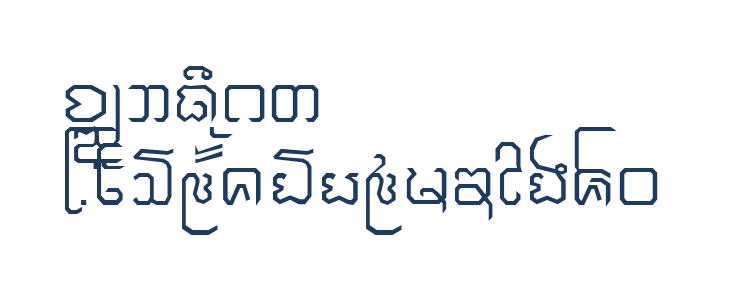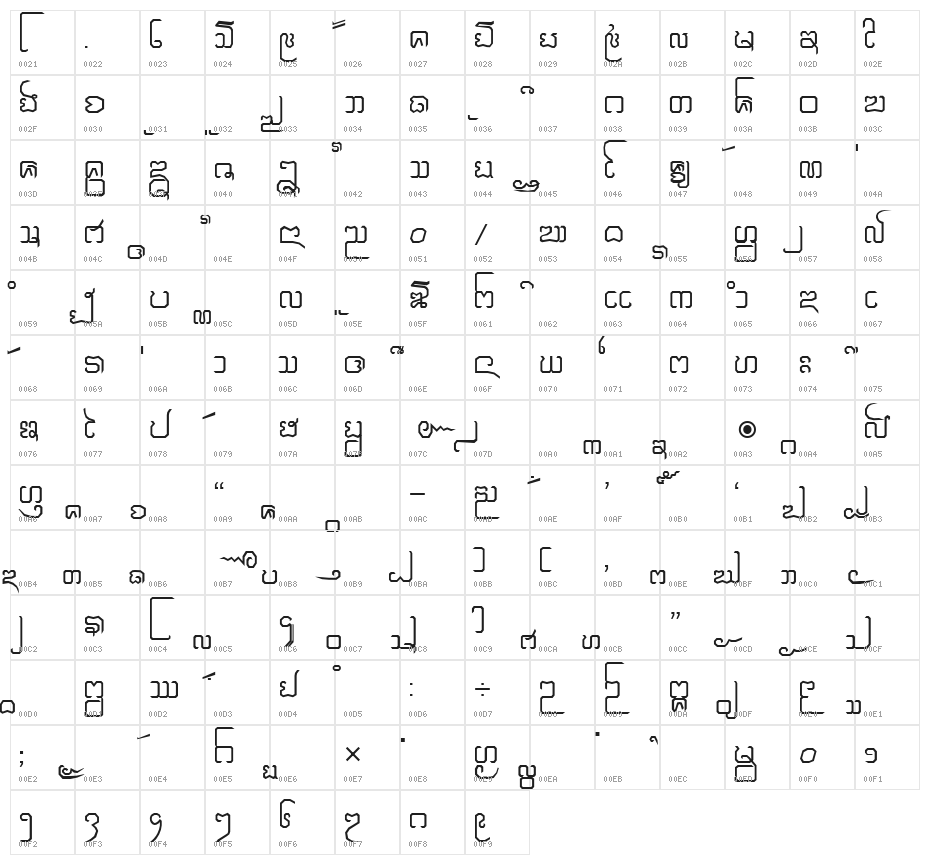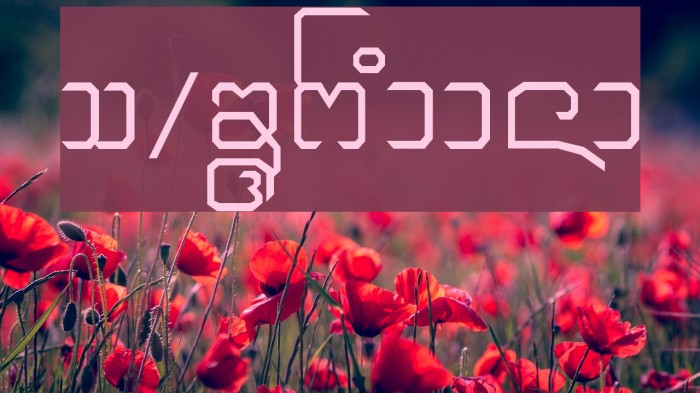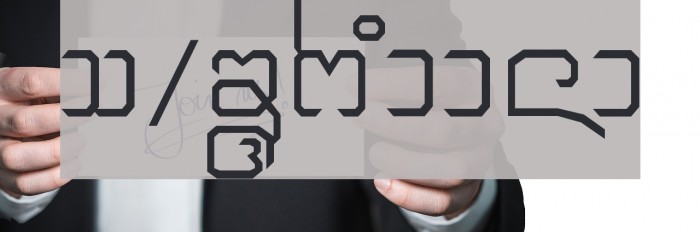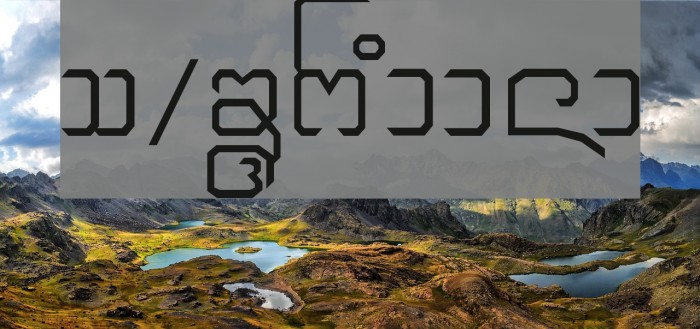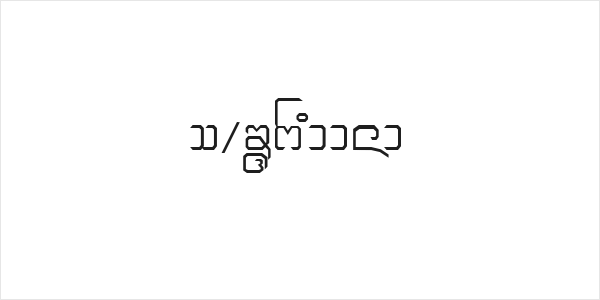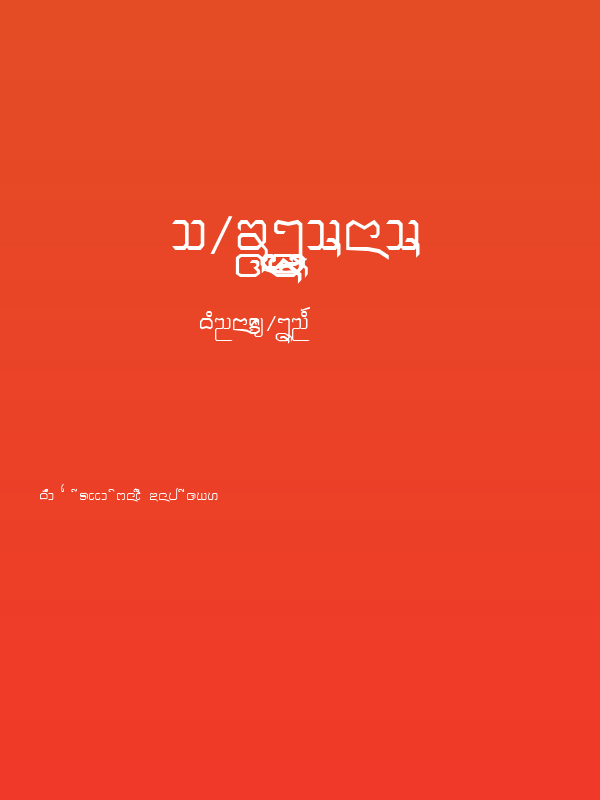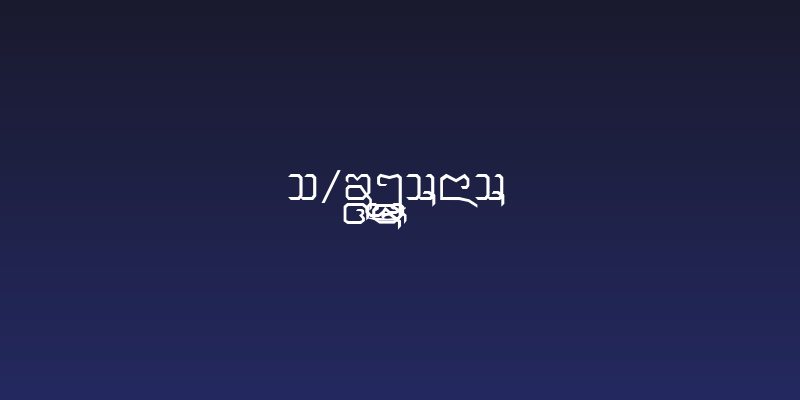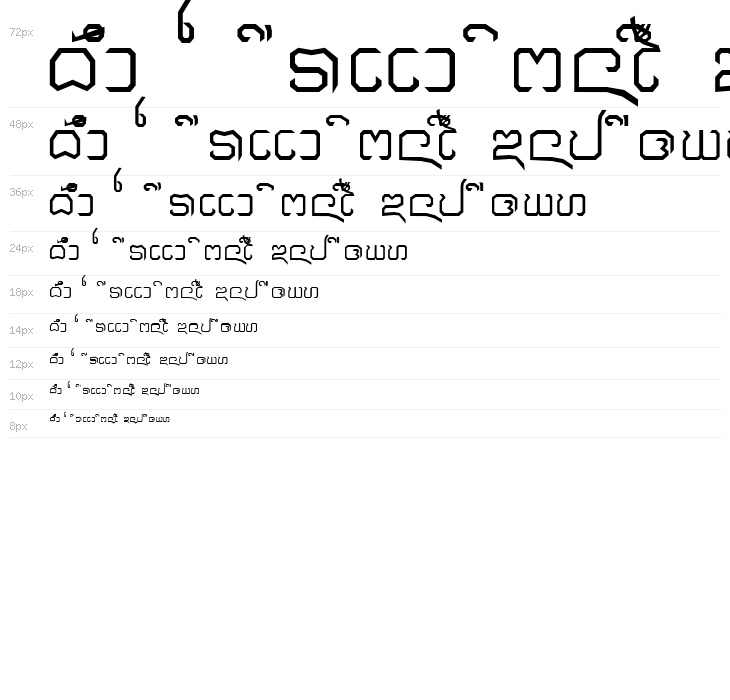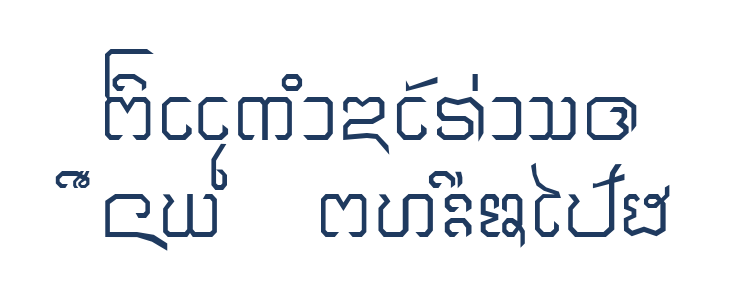
CR-Maekok Font
CR-Maekok Description
A geometric, angular font with a distinctively modular and blocky structure, featuring sharp corners and consistent stroke thickness throughout the characters. The letterforms are highly stylized, with a technical and almost stencil-like appearance, and the spacing between characters is even and regular.
| Overall Style | Modern, Technical, Decorative |
| Use Case | Headlines, Posters, Logos, Display text |
| Proposed Projects | Tech branding, signage, posters, futuristic UI, display headlines. |